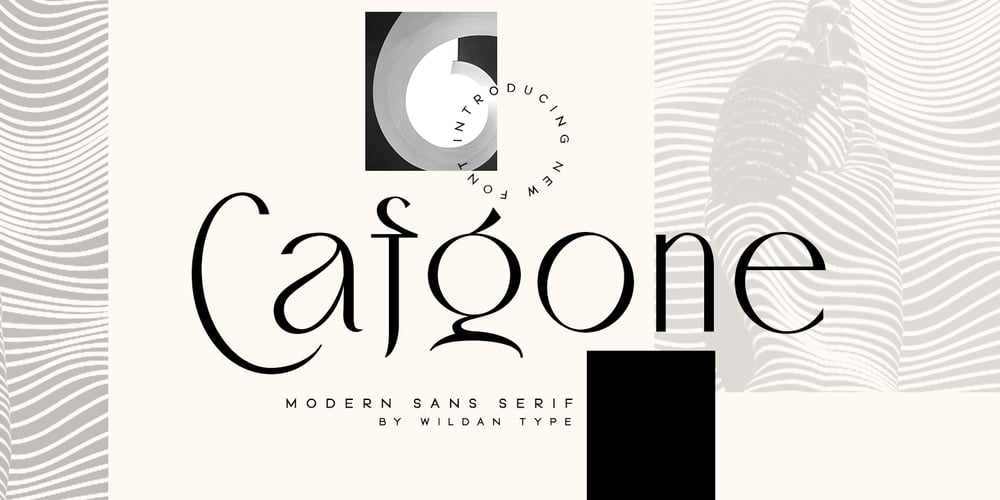
Cafgone Font Family was designed by Wildan Carbon and published by Wildan Type. Cafgone contains 2 styles and family package options. Cafgone is a modern display sans serif with modern and elegant style. This fonts is designed to pair harmoniously, and lend themselves to high end branding, logo designs, product packaging & invitation designs.With two fonts style (Regular and Oblique), Cafgone clean lines and subtle contrast give any project a touch of luxury and class.There are also decorative alternates and ligature available for uppercase letters and lowercase, so you can mix and match to add extra character and interest to logos and wordmarks.